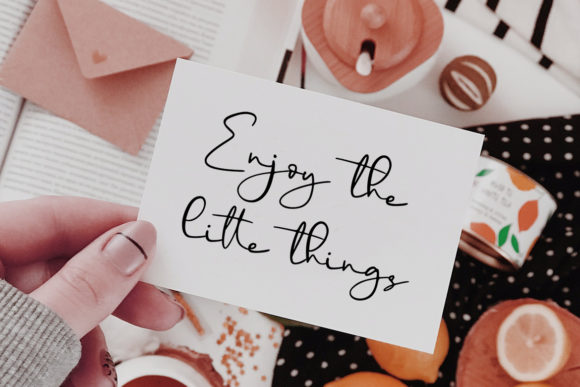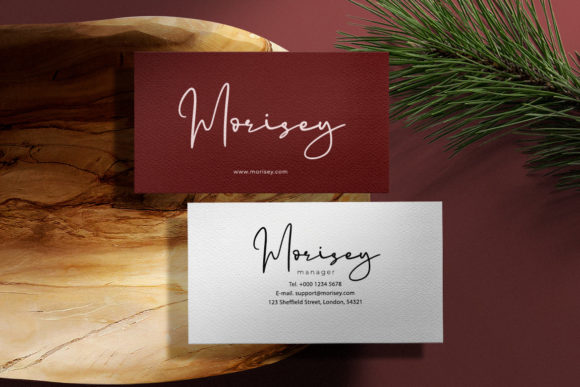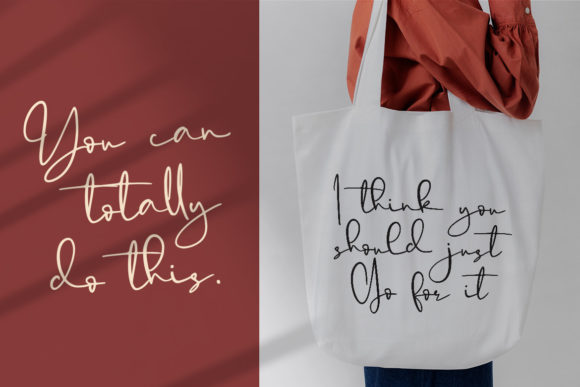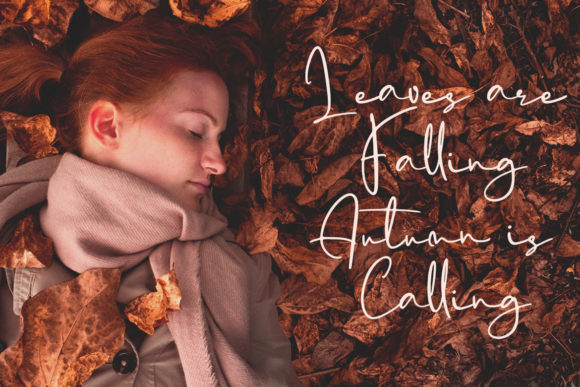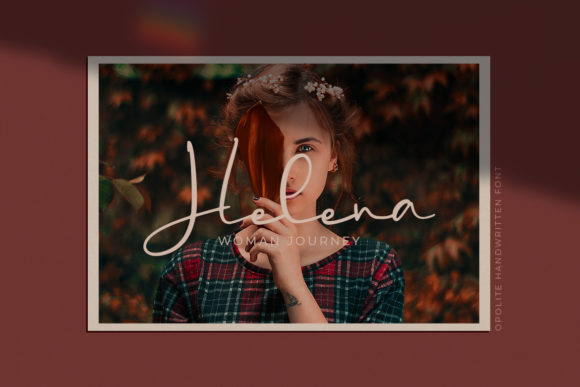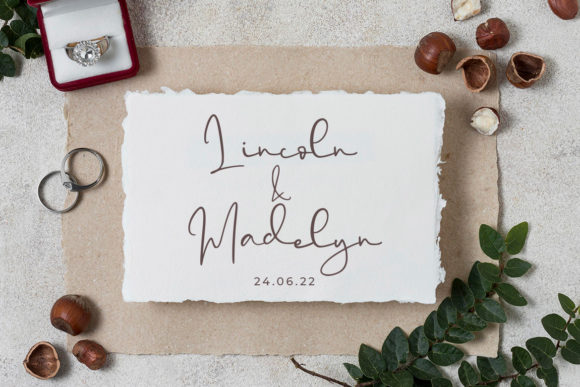
Introduction to Opolite Font
Have you ever found yourself in the midst of a creative project, pouring your heart and soul into every detail, only to realize that something is missing? The perfect font can make all the difference in bringing your vision to life. That’s where the enchanting Opolite Font comes in – a whimsical script font that will transport your design to a world of elegance and charm.
With its relaxed theme and lovely style, the Opolite Font is an invaluable design resource that will elevate any creation. Whether you’re working on a free download or a high-quality project, this font is sure to add a touch of sophistication to your design. Its versatility makes it an ideal choice for designers looking to create a unique and captivating visual identity.
Key Features of Opolite Font
- Unique, modern design with a transparent background, making it versatile for various design applications.
- Designed to be easily readable, Opolite Font features clean lines, elegant curves, and a well-balanced character set, making it perfect for body text and headings.
Honest Review: Opolite Font
I recently had the chance to work with the Opolite Font in a creative project and I must say, I was pleasantly surprised. This font has quickly become a design resource that I’ll be reaching for again and again.
One of the things that works well with the Opolite Font is its versatility. It’s perfect for creating a high-quality design that stands out from the crowd. I loved using it for a project with a transparent background, and the results were stunning. The font is also incredibly easy to use, making it a great choice for designers of all skill levels.
Some of the key benefits of the Opolite Font include:
- Transparent background option for added depth and visual interest
However, one limitation of the Opolite Font is that it may not be suitable for all types of projects. For example, it may not be the best choice for a formal or traditional design.
Overall, I was really impressed with the Opolite Font. It’s a high-quality design resource that’s perfect for creative projects, and it’s available for free download. I highly recommend giving it a try! ⚠️ While it may have some limitations, it’s definitely worth considering for your next design project. ✨
How to Use Opolite Font
The Opolite Font is a high-quality design resource ideal for creative projects requiring a unique and stylish touch. Its transparent background makes it easy to incorporate into various design elements.
To get the most out of the Opolite Font, experiment with different font sizes, colors, and styles to create visually appealing designs.
The Opolite Font is perfect for creating eye-catching headings, titles, and subtitles in creative projects, such as:
• Social media graphics and posts
• Blog posts and articles
• Presentations and slideshows
• Brochures and flyers
• Branding and marketing materials